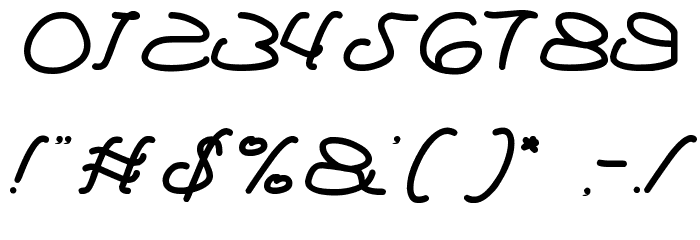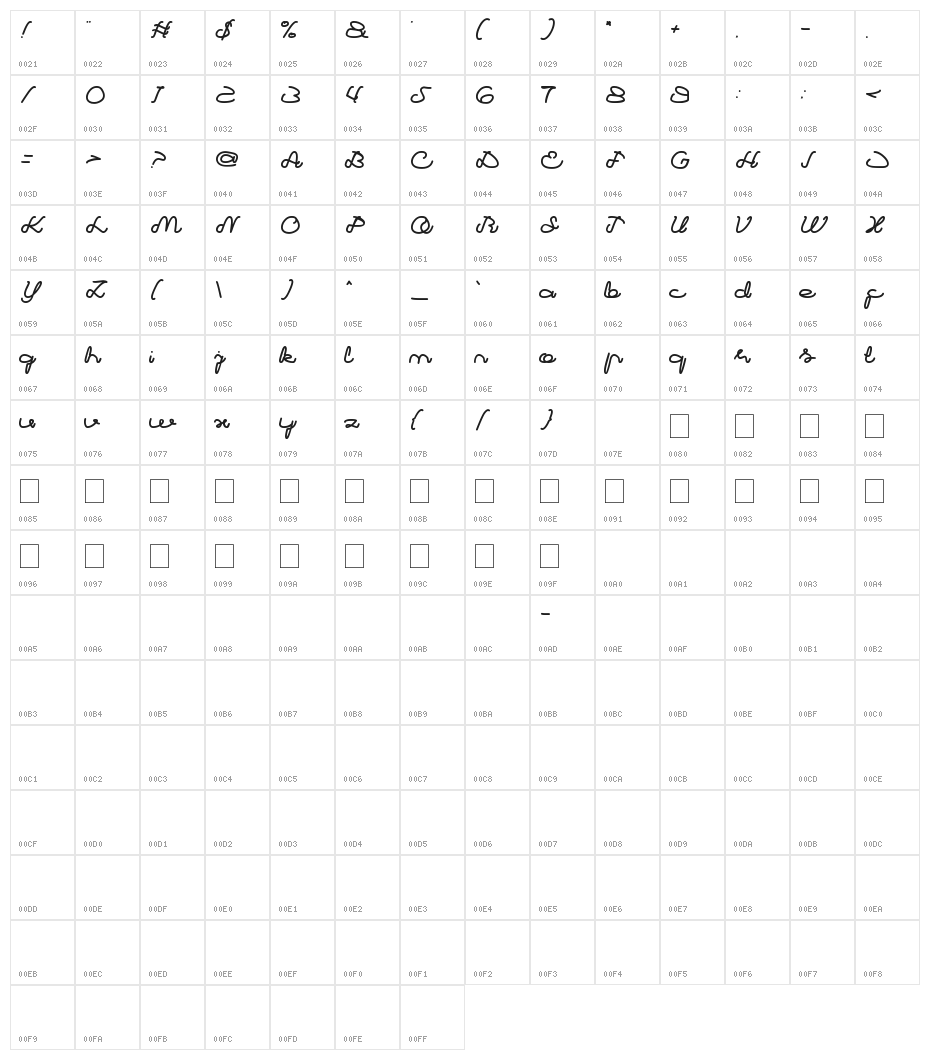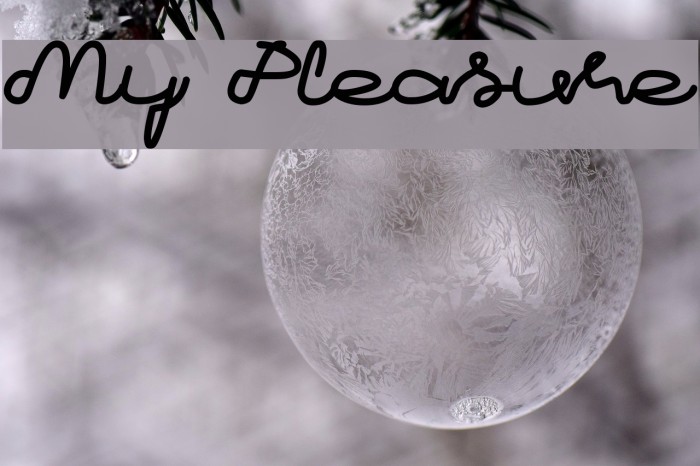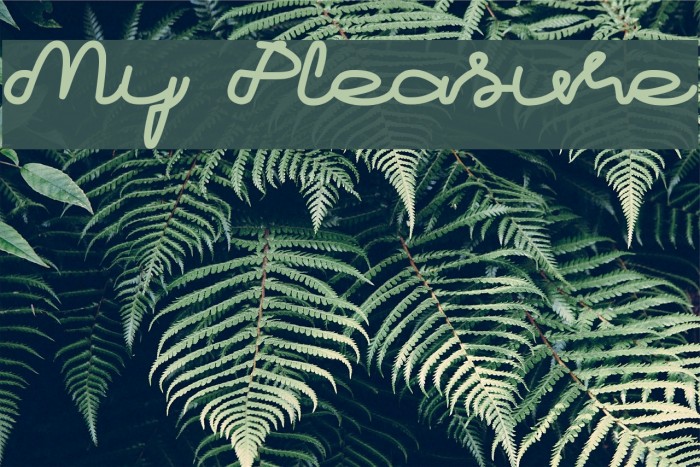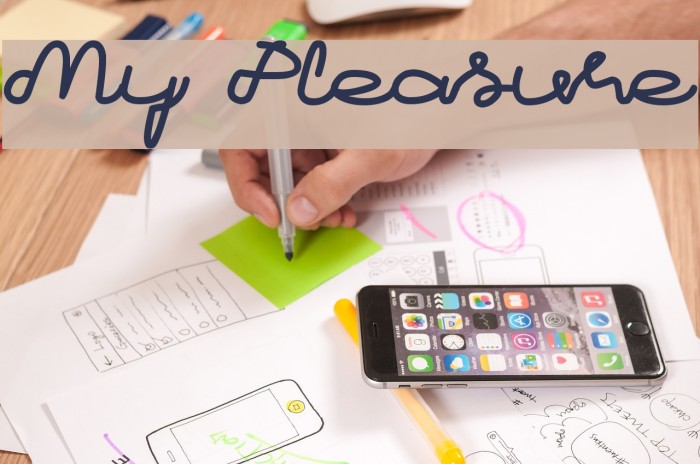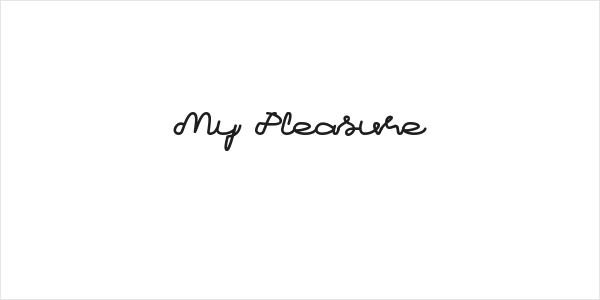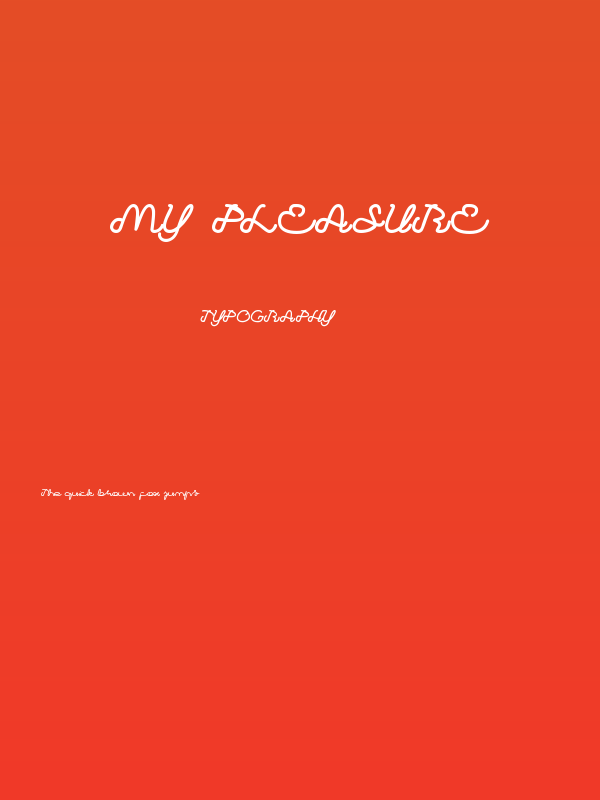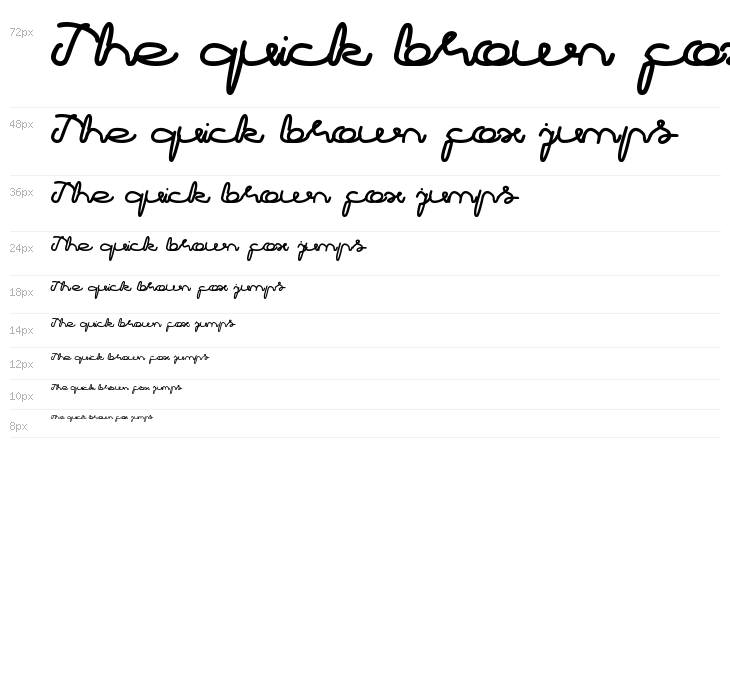
My Pleasure Font
My Pleasure Description
This font features a playful and flowing script style, characterized by its smooth, continuous strokes that mimic the fluidity of handwriting. The letters are interconnected, creating a seamless and elegant appearance. The uppercase letters maintain a consistent height, while the lowercase letters exhibit a charming looped design, adding to the font's whimsical nature. The numerals are rounded and maintain the same fluid style, ensuring consistency throughout. Special characters are integrated seamlessly, maintaining the overall aesthetic. This font's design is both approachable and stylish, making it suitable for a variety of creative applications.